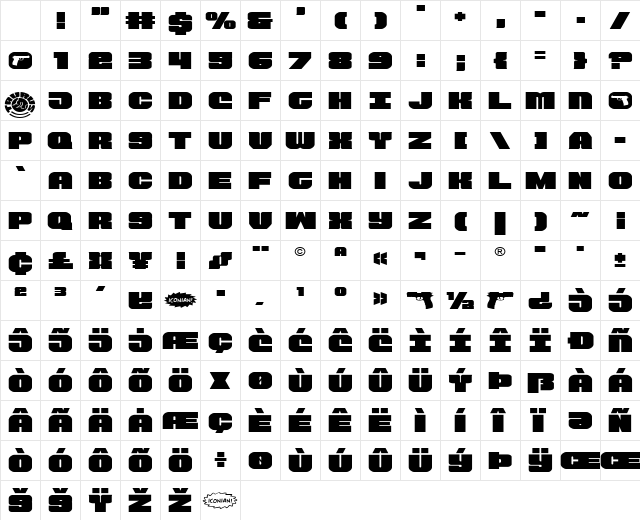
Complete Tauro Expanded glyph index. Displaying only characters natively supported by Tauro Expanded font.
Tauro is a composed and adaptable typeface that performs quietly and consistently across a wide range of design contexts.